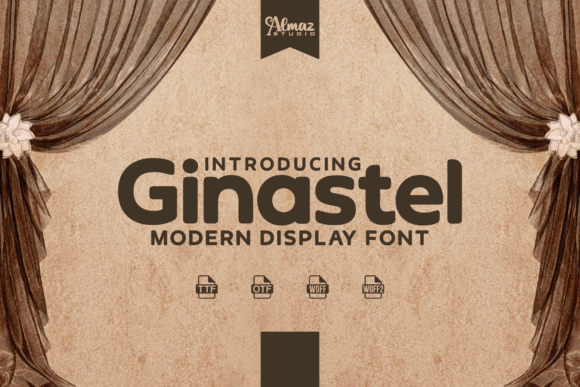
The Perfect Font for Your Next Design Project
Have you ever stared at a blank page, waiting for inspiration to strike? The cursor blinks, and your mind goes blank. Suddenly, the perfect font pops into your head, and your design begins to take shape. For many designers, this is the moment when creativity truly flows. And for those who are still searching, we’re excited to introduce you to the Ginastel Font – a beautiful sans serif font that will elevate your designs to the next level.
Ginastel Font is designed to be versatile and elegant, making it perfect for a wide range of design needs. Whether you’re creating layout designs, apparel, magazines, posters, logos, or branding materials, this font is sure to impress. Its beautiful contrast and sleek design make it a valuable asset for any designer looking to add a touch of sophistication to their work.
Ginastel Font Key Features
- Font Family: Ginastel Font is a sans-serif typeface designed for digital use.
- Resolution: Designed for high-resolution displays, with optimized performance at 72-300 DPI.
- Unique Characteristics: Ginastel Font features a clean and modern design with a unique blend of geometric and organic elements.
- Font Size: Offers a range of font sizes, from 8pt to 72pt, making it suitable for various applications, including body text, headings, and titles.
Ginastel Font Review
I recently had the chance to work with the Ginastel font, and I must say it’s a unique addition to any design project. Here’s what I think works well:
- ✨ Elegant feel: Ginastel’s refined lines and subtle curves give it an upscale, sophisticated look that’s perfect for luxury brands or high-end publications.
- ✨ Versatility: This font is incredibly versatile, working well in both print and digital formats, and suitable for a wide range of applications, from headings to body text.
- ✨ Distinctive flair: Ginastel’s unique design elements, such as its distinctive letterforms and ornate details, add a touch of personality to any project.
However, I did encounter a few limitations:
- ⚠️ Readability at small sizes: While Ginastel looks stunning at larger sizes, it can become difficult to read at smaller font sizes, which may limit its use in certain applications.
- ⚠️ Limited language support: Ginastel’s language support is limited, which may be a concern for designers working with non-English clients or projects.
Overall, I think the Ginastel font is a solid choice for designers looking to add a touch of elegance and sophistication to their projects. While it may have some limitations, its unique design and versatility make it a valuable addition to any design toolkit.
Tips for Getting the Most Out of Ginastel Font
To get the most out of Ginastel Font, try the following:
- Use the font in conjunction with other elegant fonts to create a sophisticated look.
- Experiment with different font sizes and colors to add emphasis and visual interest.
- Use the font in headings and titles to create a clear hierarchy of information.
Ginastel Font is commonly used in:
- Magazine